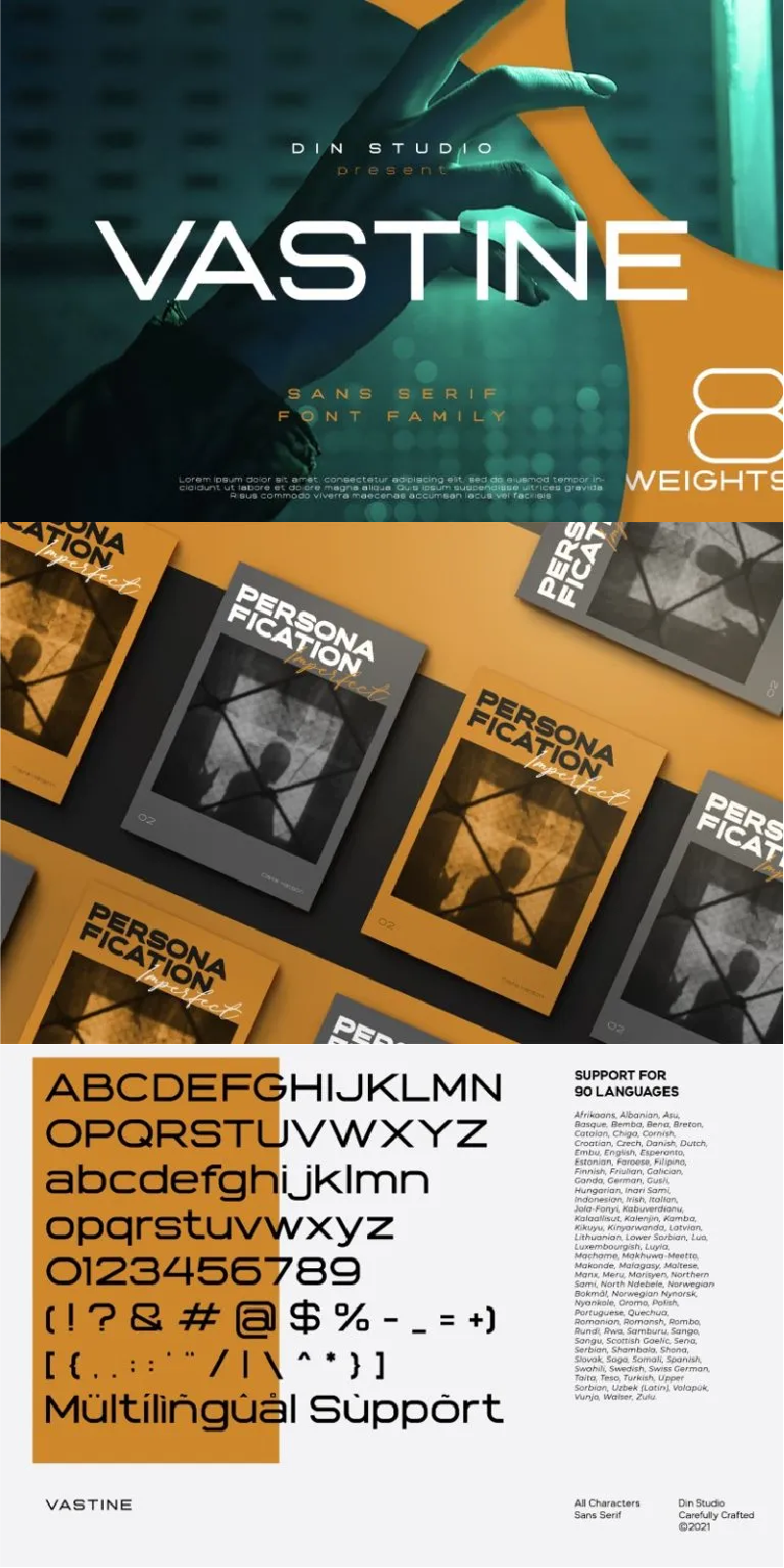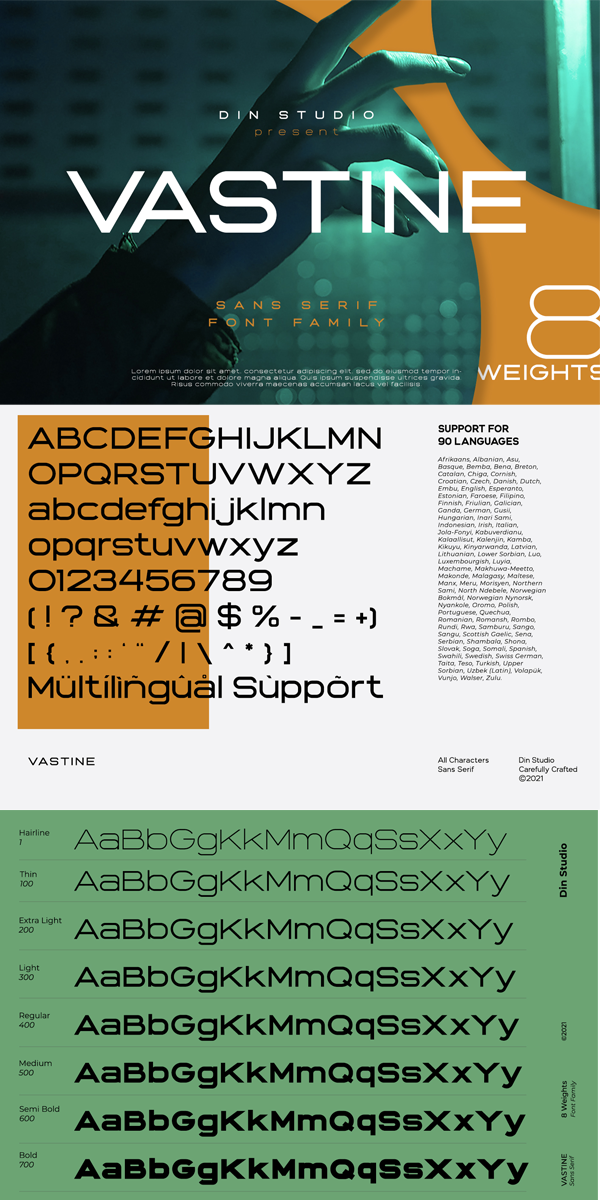
VASTINE Font
About VASTINE
Vastine, a Sans Serif Font Family, is your surprising package as you will get more options to maximize your designs with this stylish font. It is made in uppercase and lowercase letters which are easy on the eyes and nice to look at, and easy to read. This font is designed to bring your brandings to life and add a touch of modernity, fun and style. Perfect to create amazing headings, logos, menus, social media graphics, and so on.
It includes 8 different weight fonts (otf/ttf/woff):
-Vastine Hairline
-Vastine Thin
-Vastine Light
-Vastine Regular
-Vastine Medium
-Vastine Semi Bold
-Vastine Bold